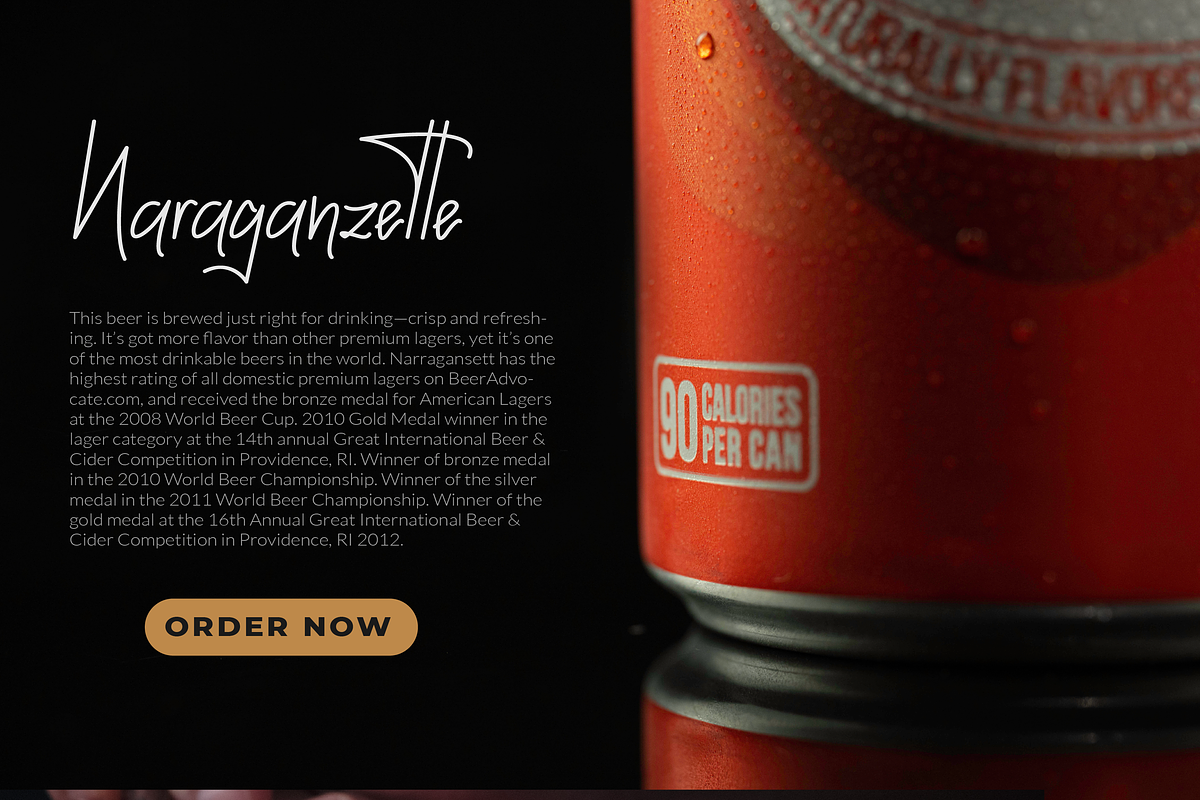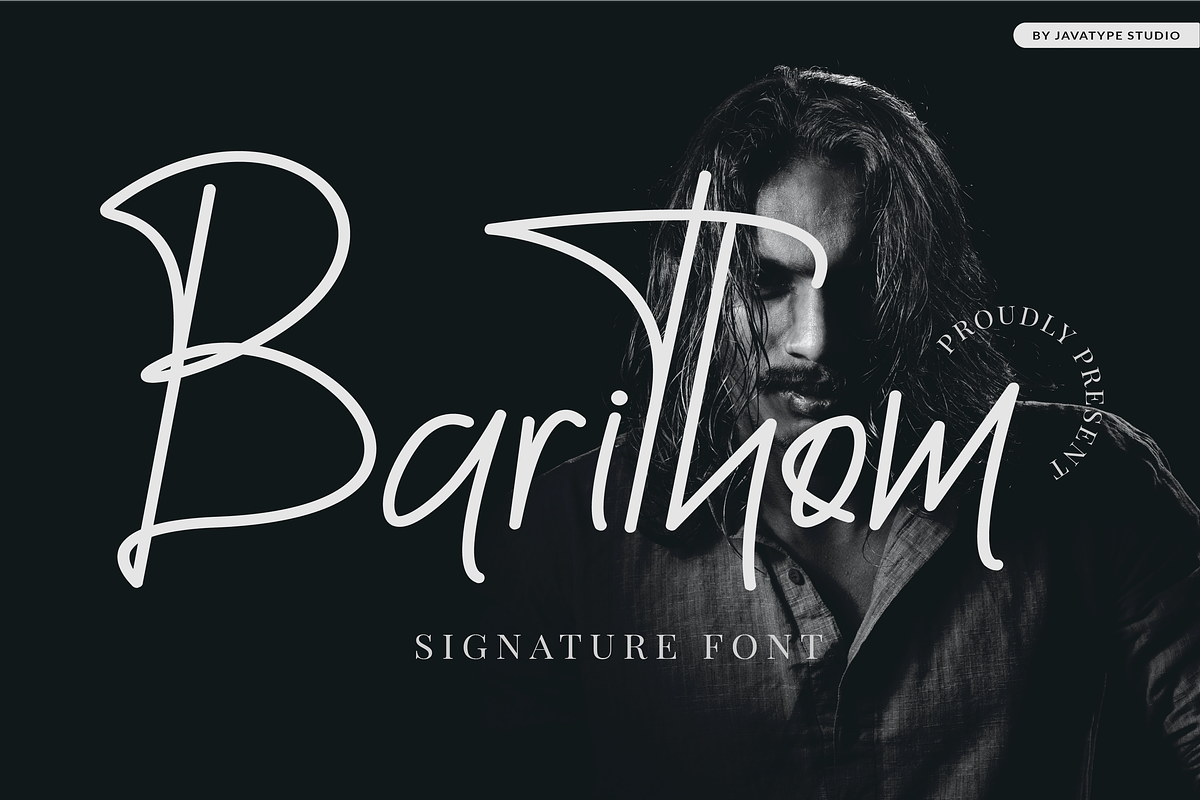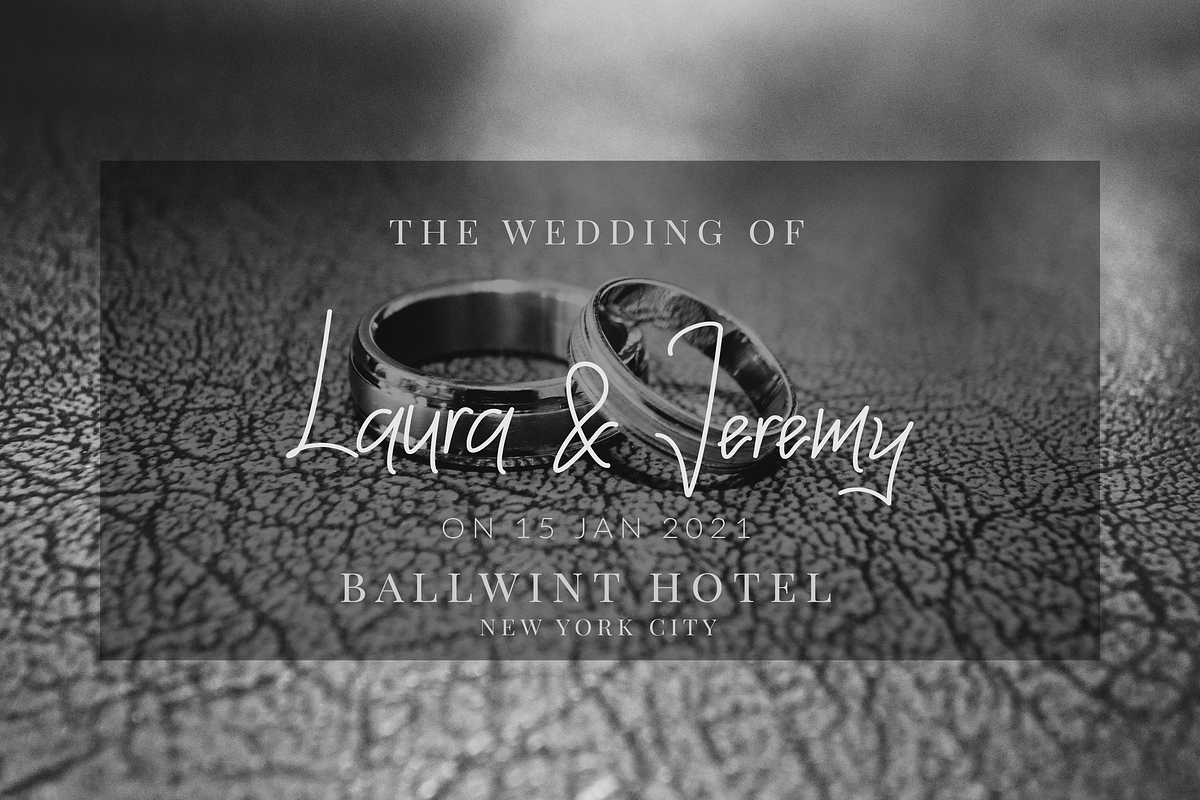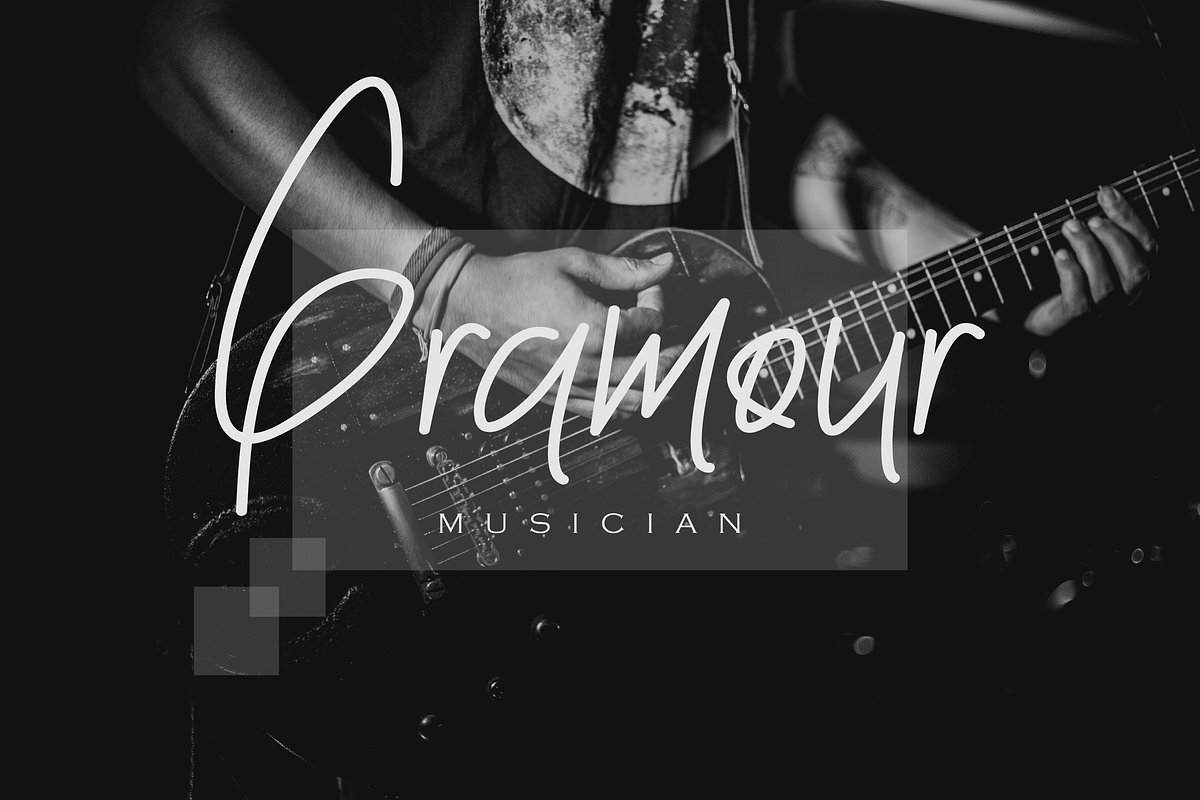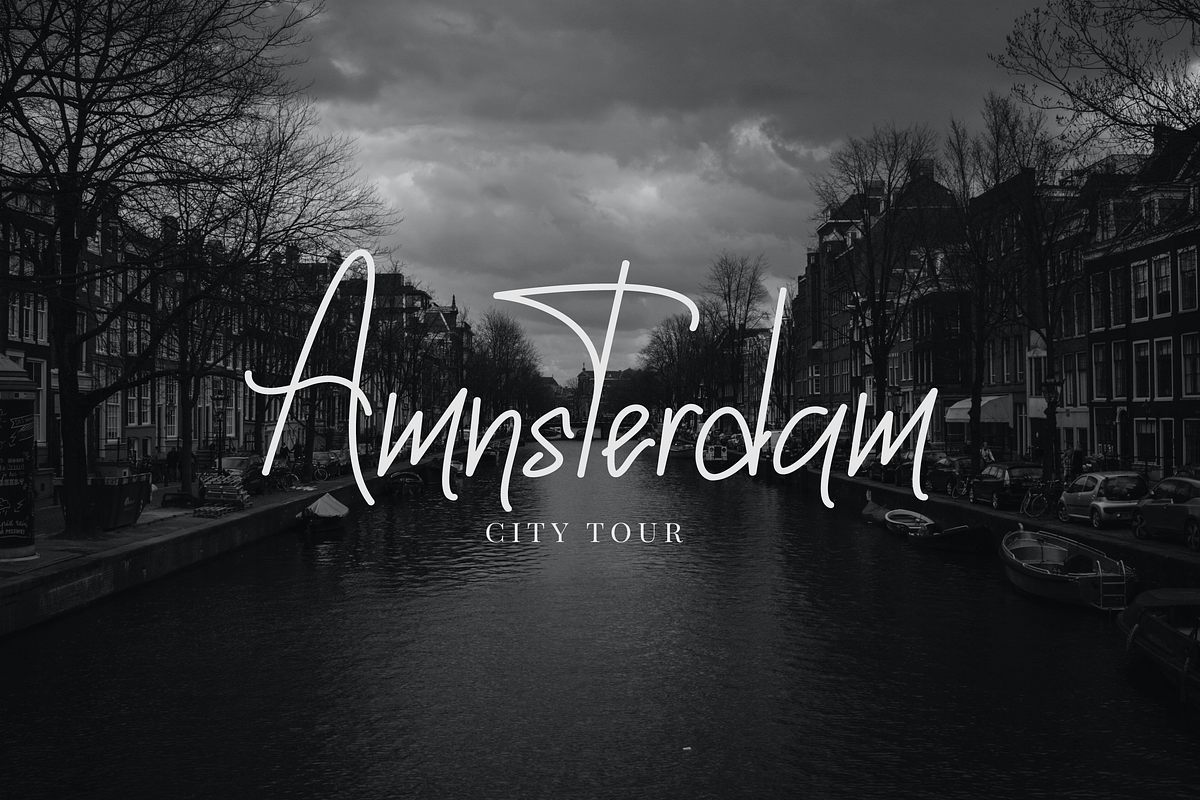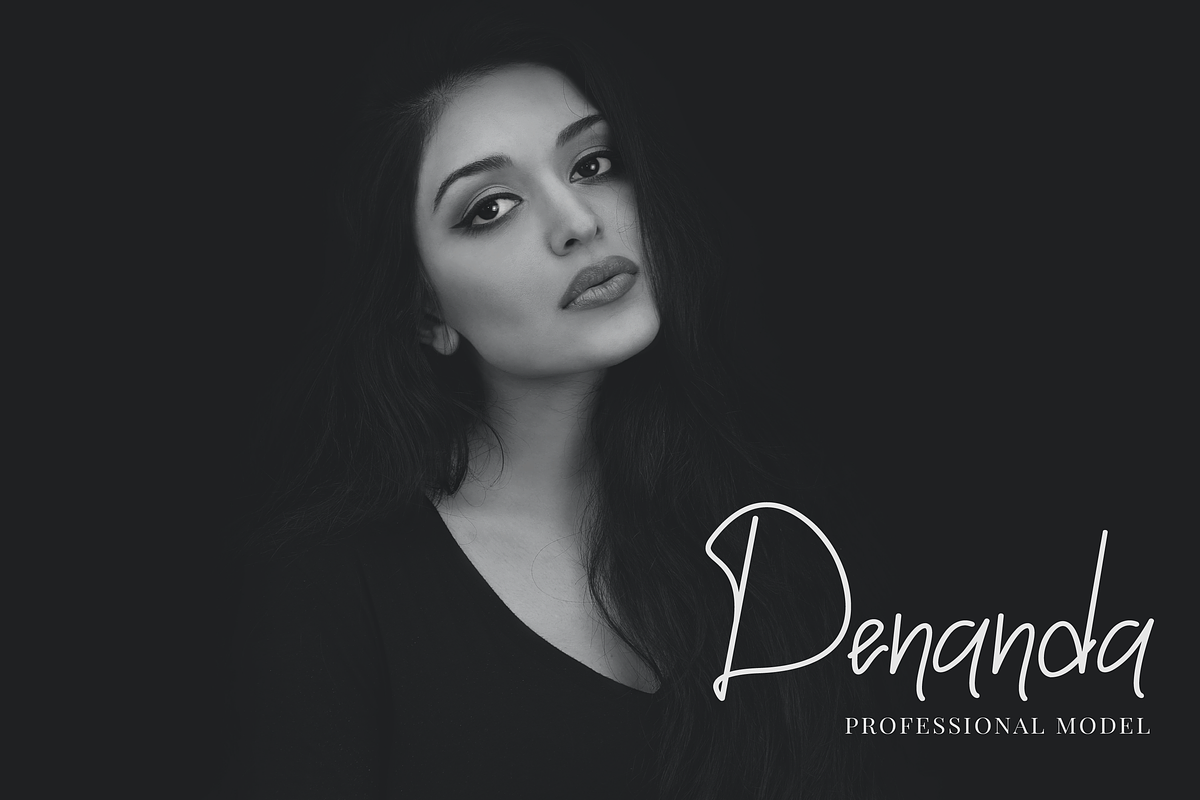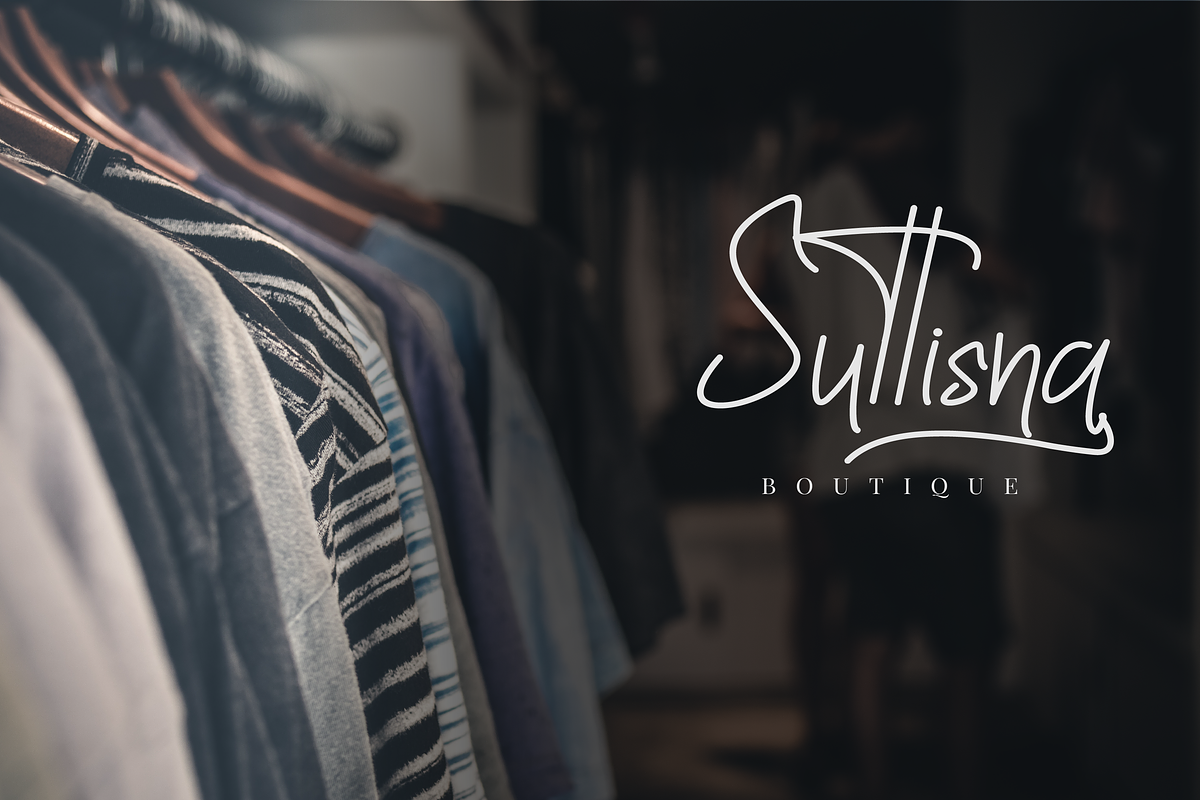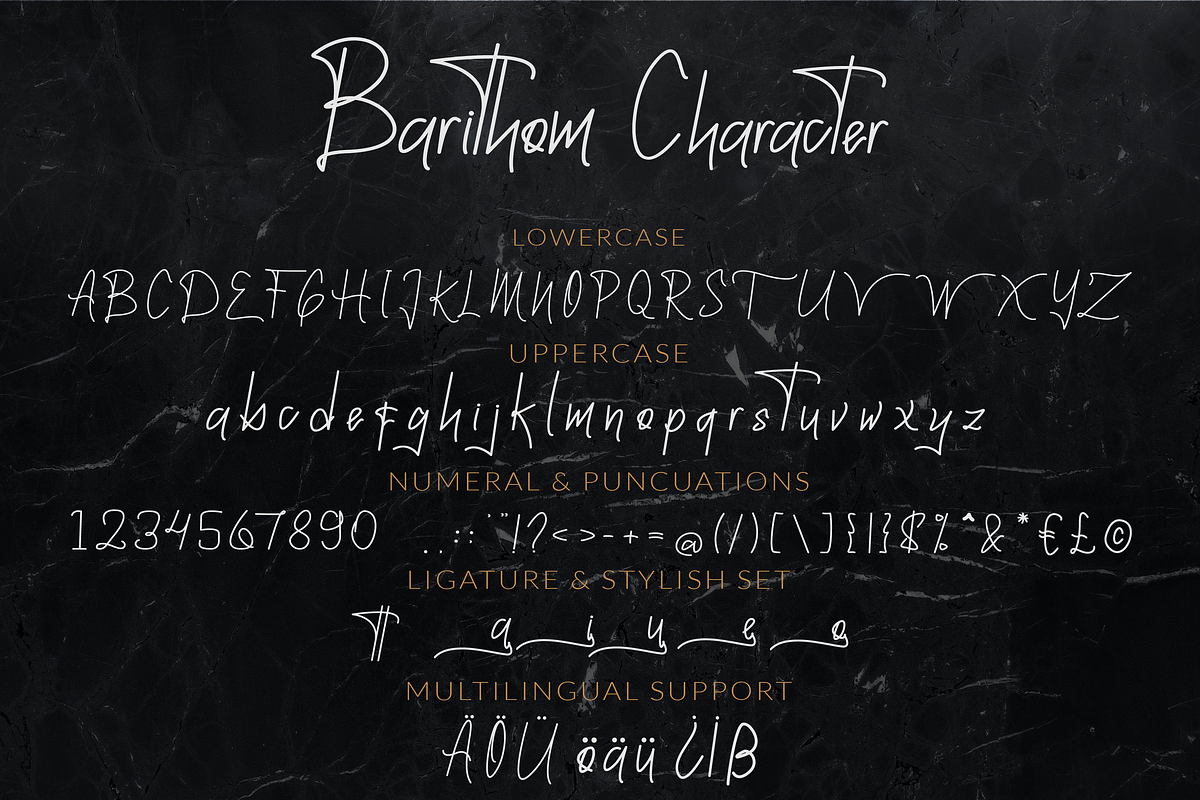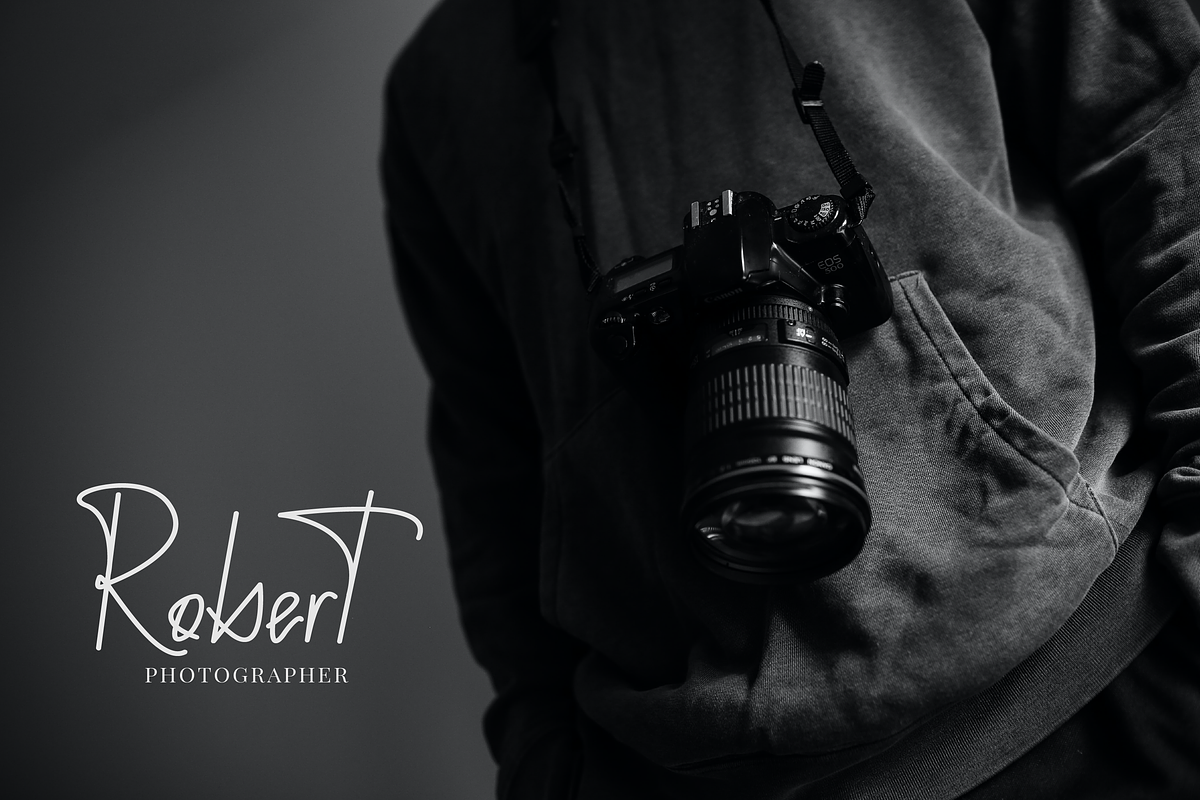
Barithom a signature monoline font
Barithom is a signature monoline font with an elegant and classy style for your perfect project.
Barithom would perfect for photography, watermark, social media posts, advertisements, logos & branding, invitation, product designs, label, stationery, wedding designs, product packaging, special events or anything that need handwriting taste.
- Fonts include multilingual support